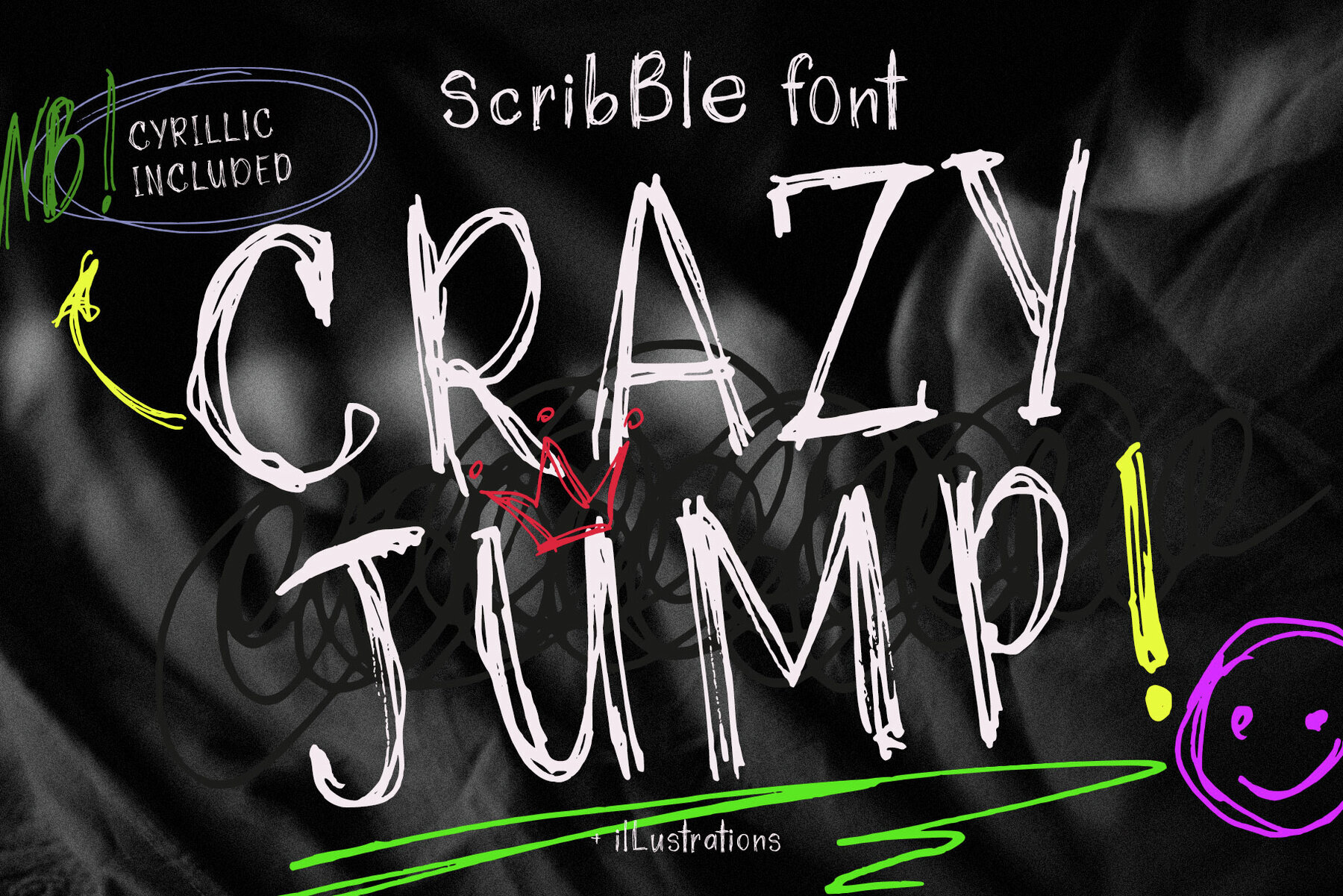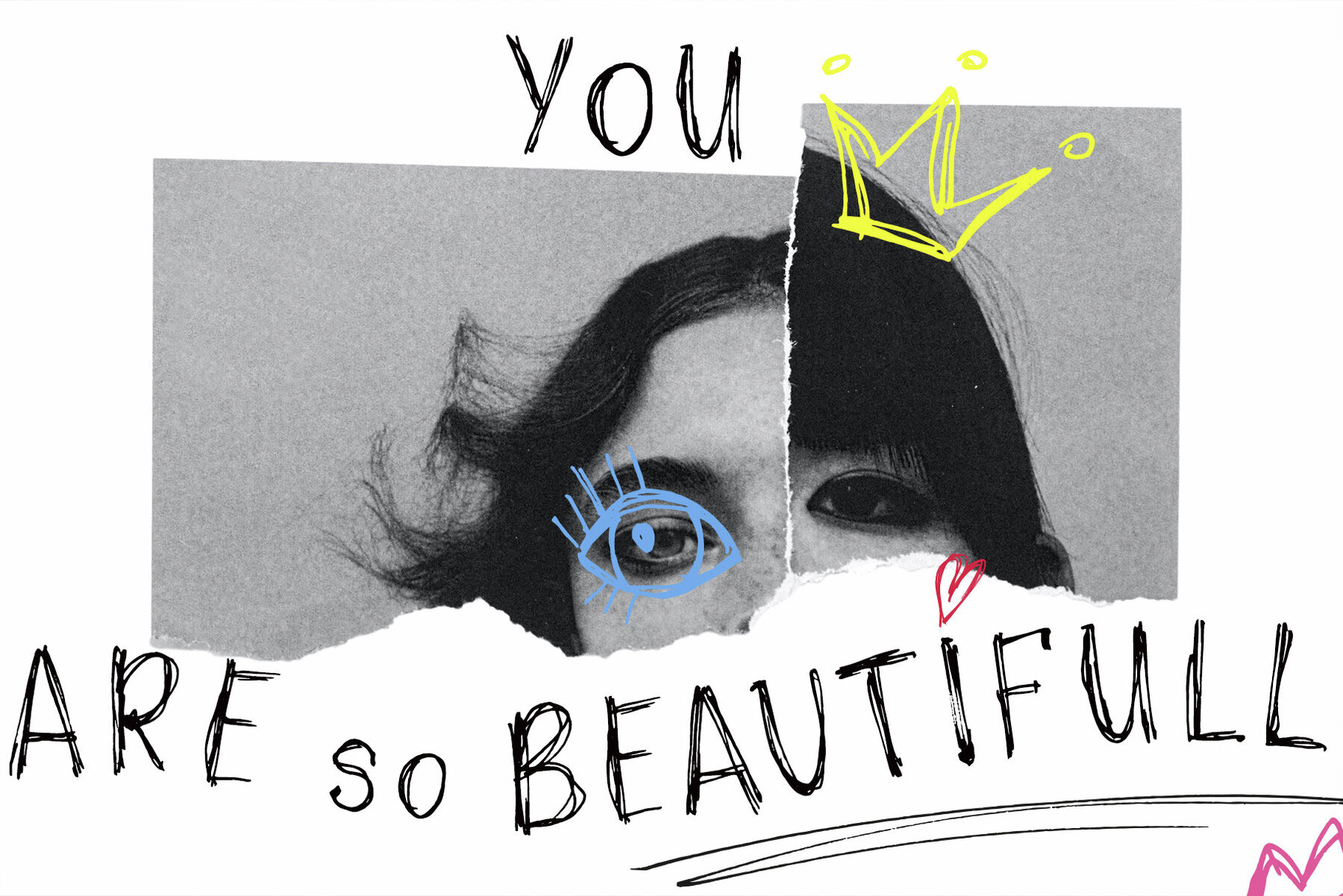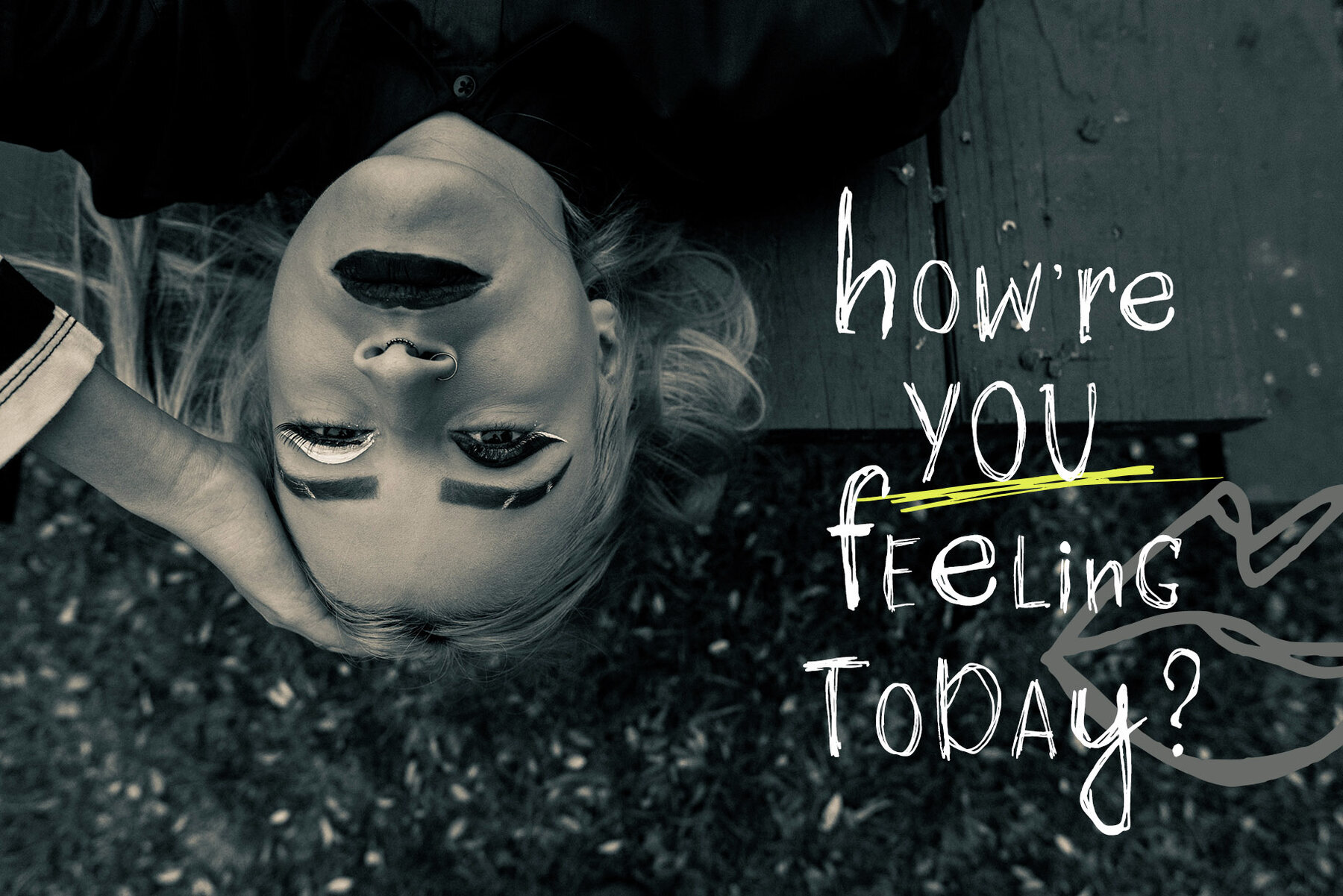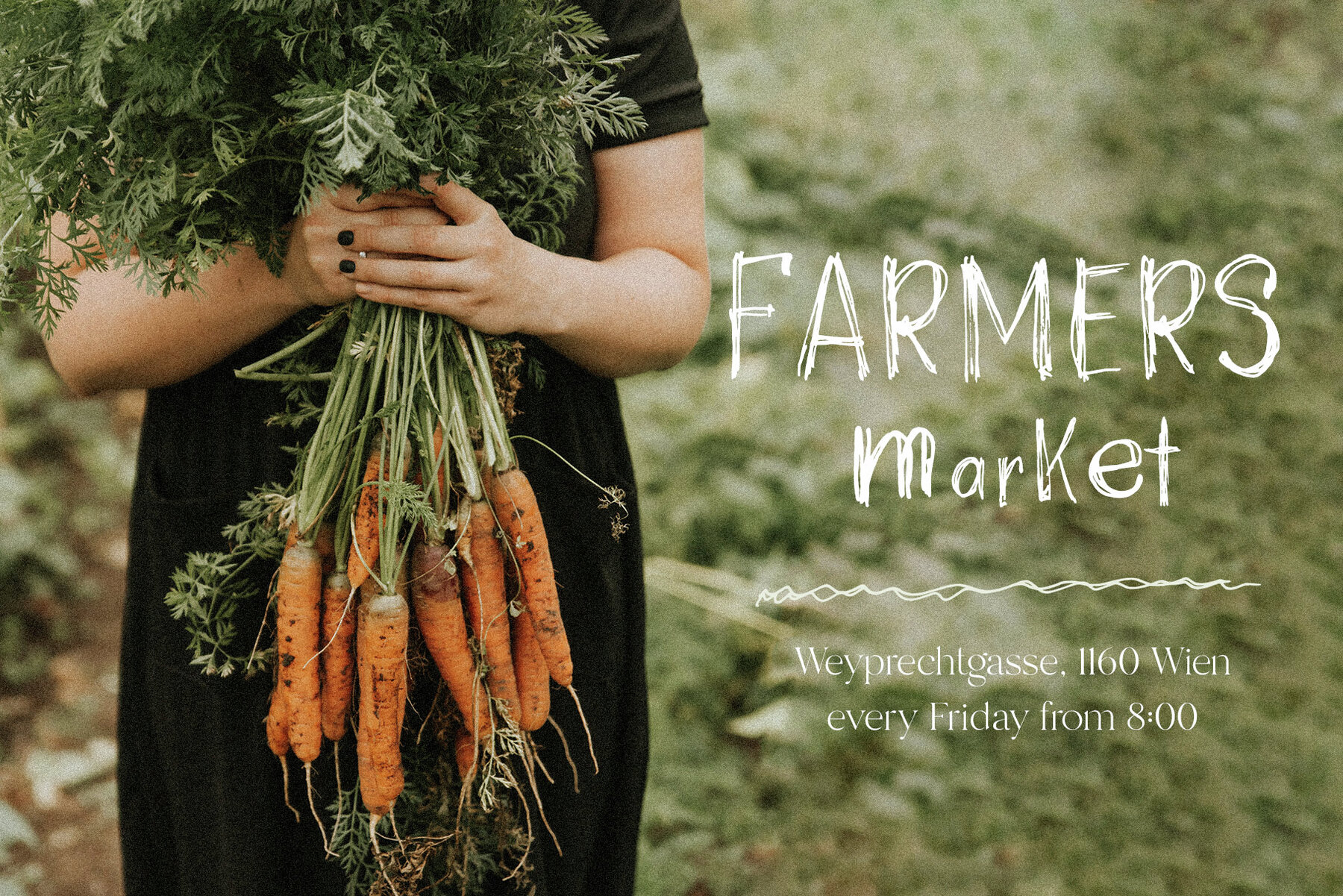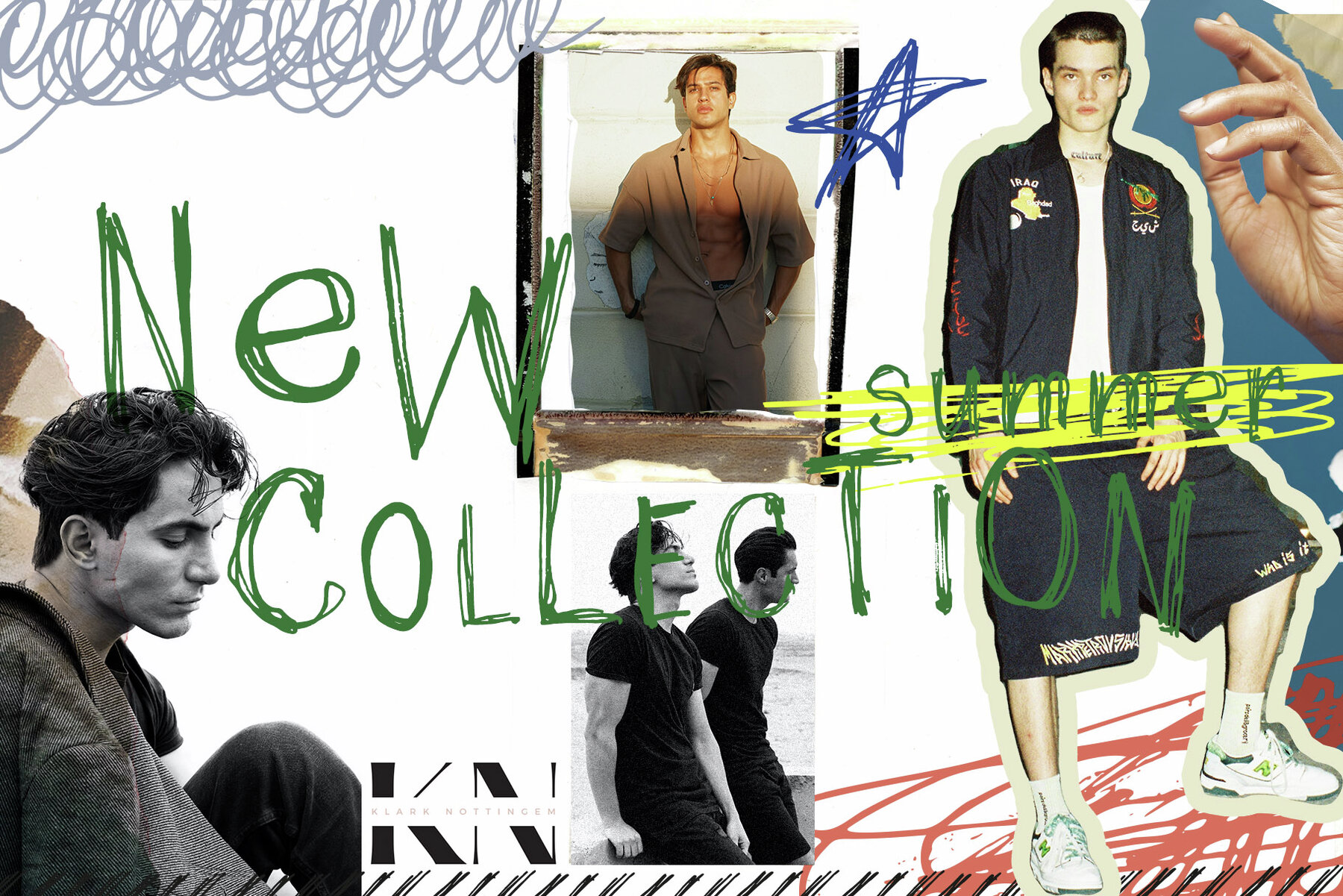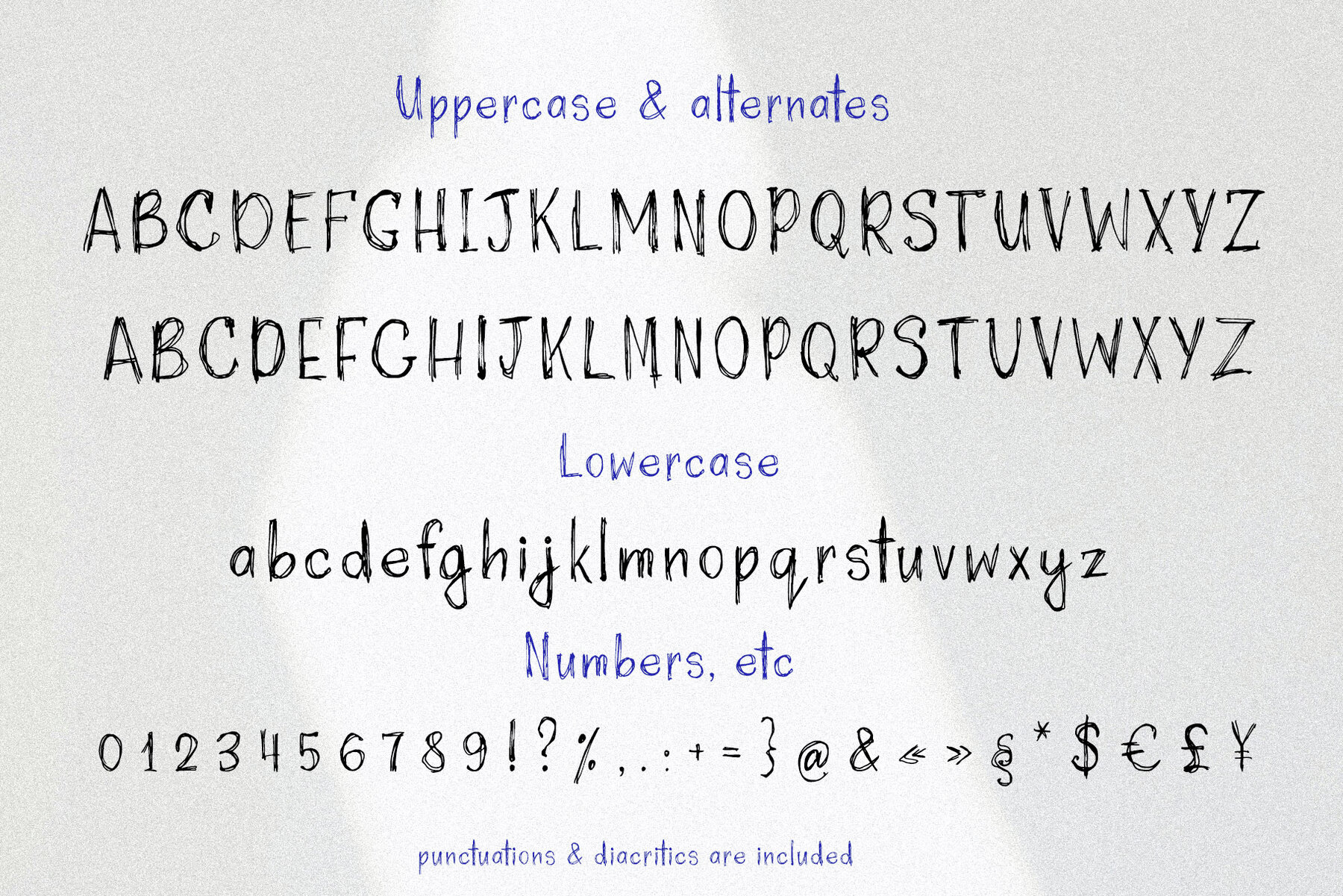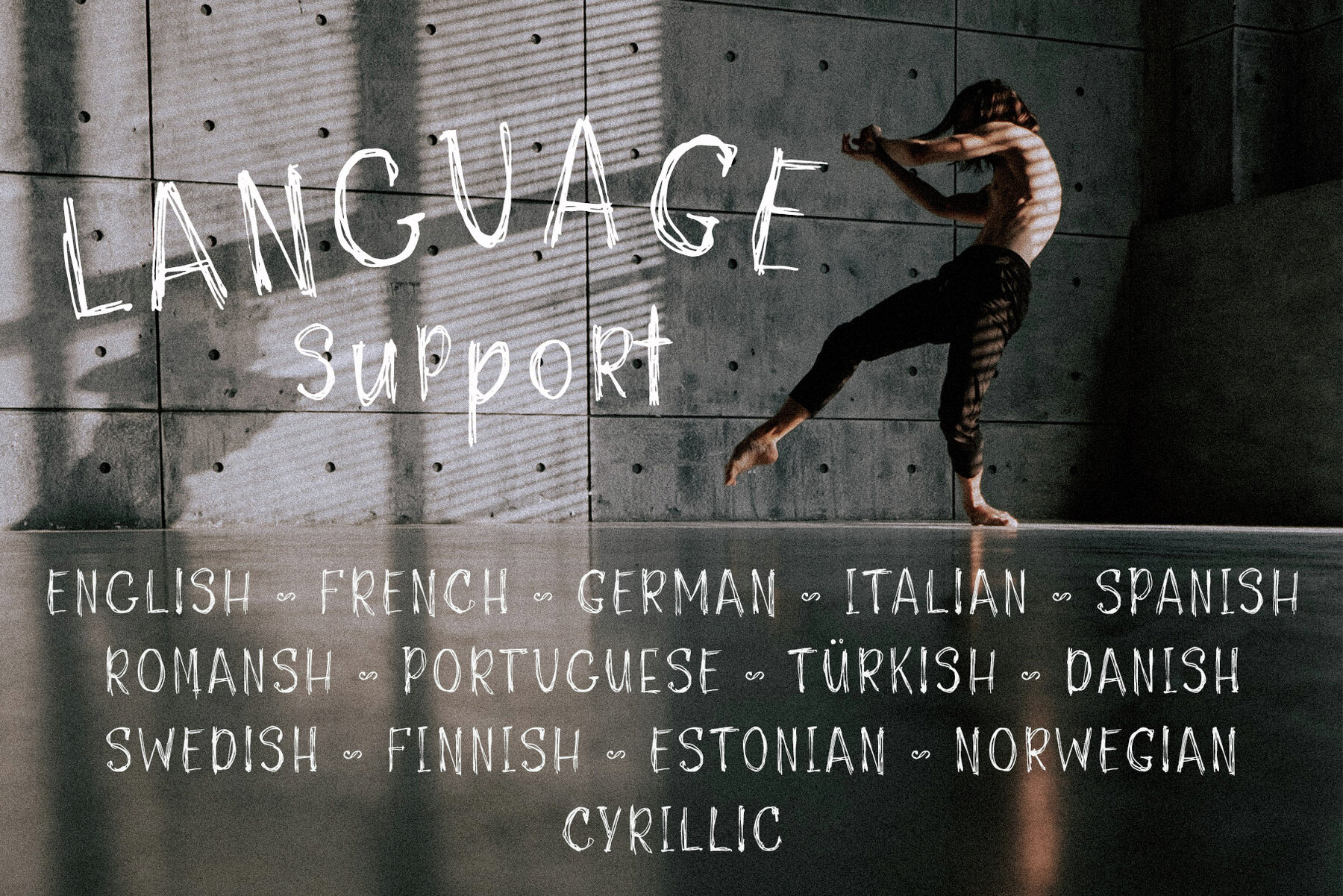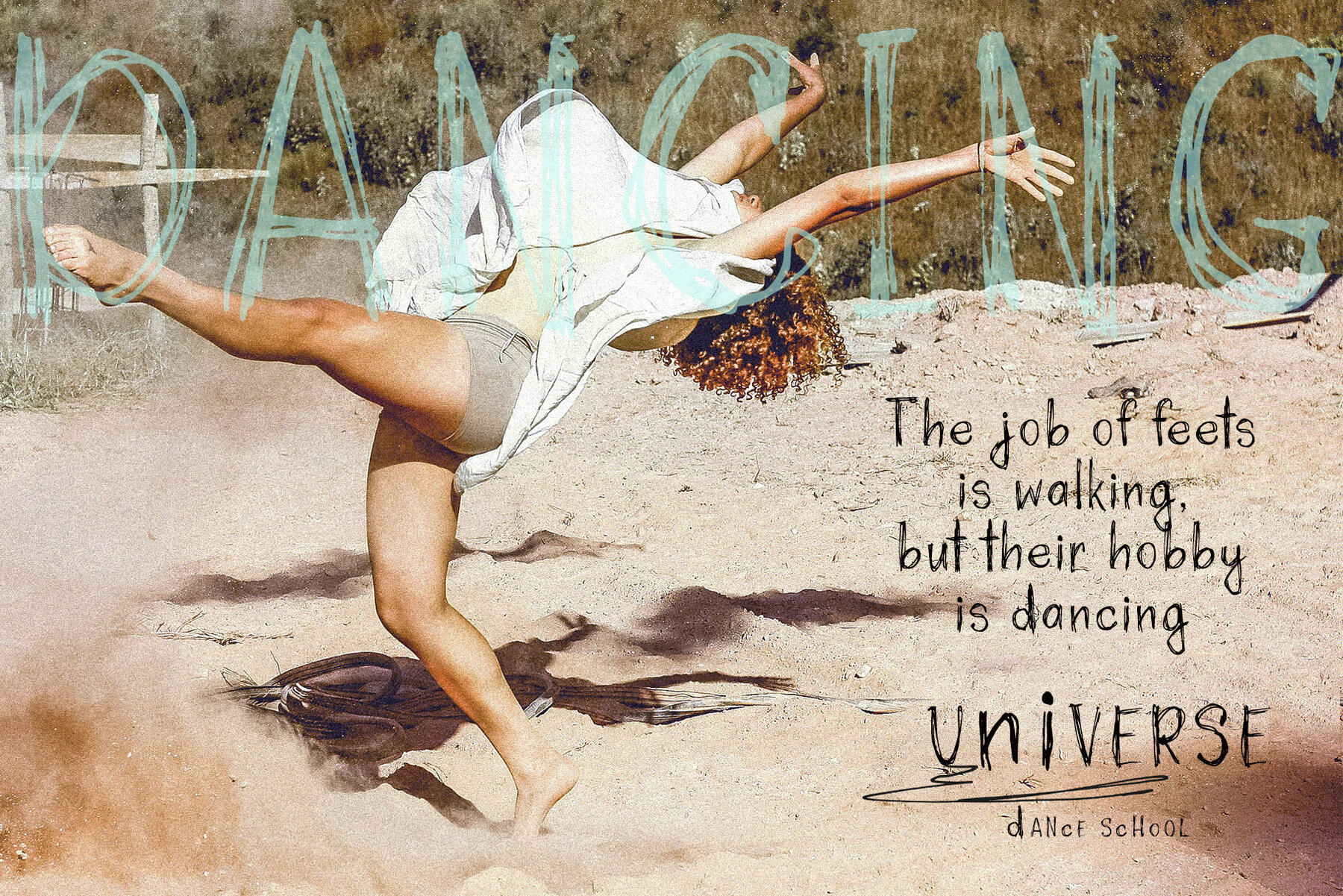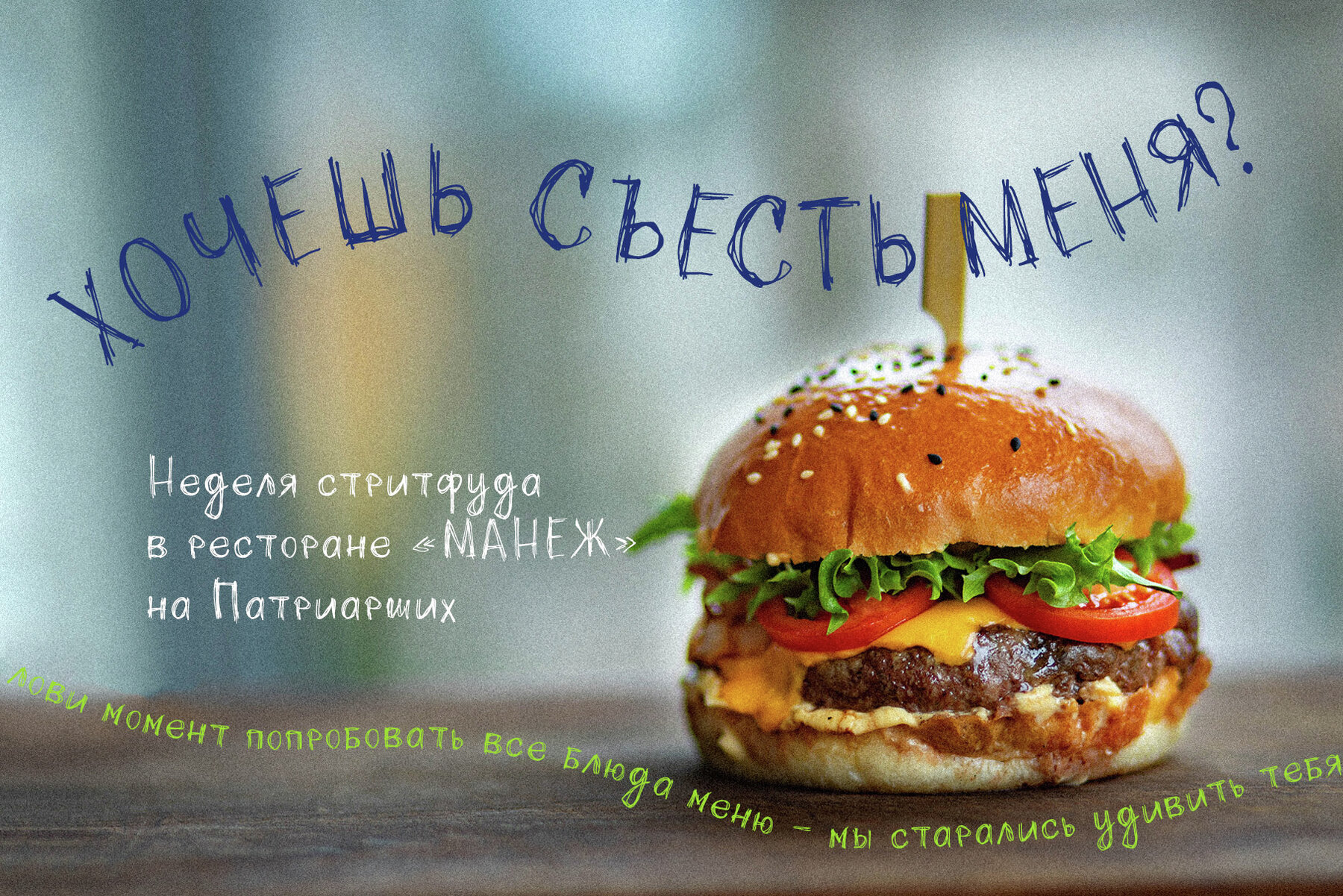
Crazy Jump Font
Discover Crazy Jump, a dynamic handwriting font that brings a distinctive grunge, textured feel to your designs. Created with a scratched fountain pen style, this decorative typeface adds a compelling edge to projects. Whether you're crafting logos or designing packaging, Crazy Jump is a versatile choice, enhancing themes with flair and creativity. With its wide array of supported languages, including Cyrillic, Crazy Jump ensures your work reaches a broad audience. Please note that text and mockups are not included, allowing you the freedom to design with your unique vision in mind.Crazy Jump: The Dynamic Handwriting Font